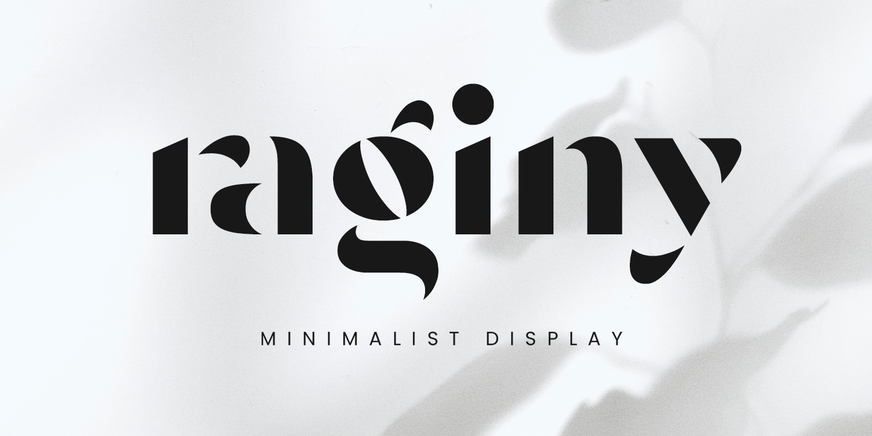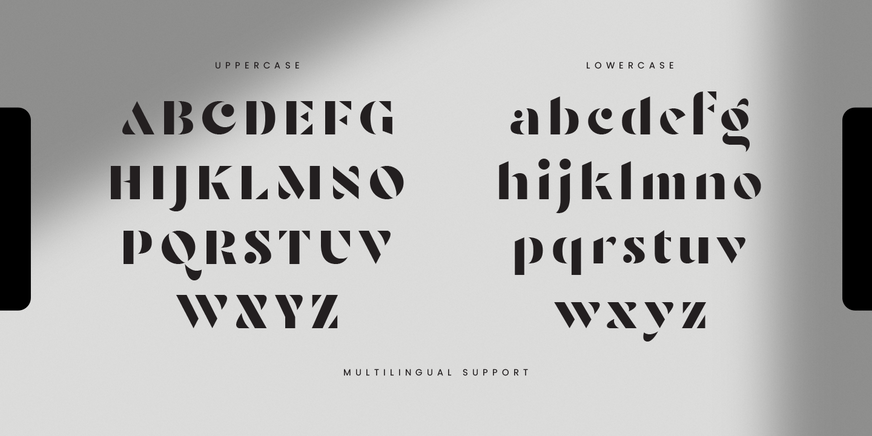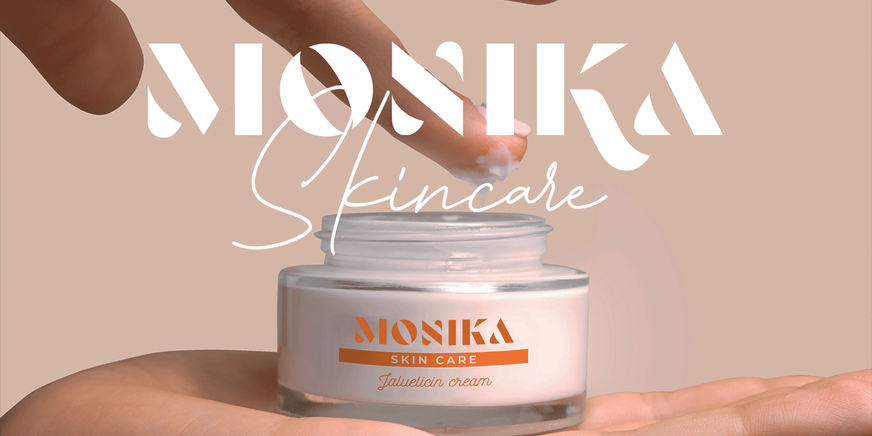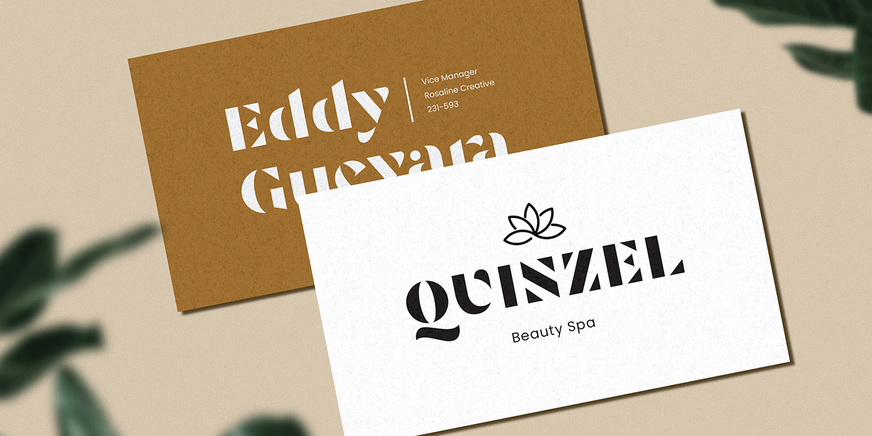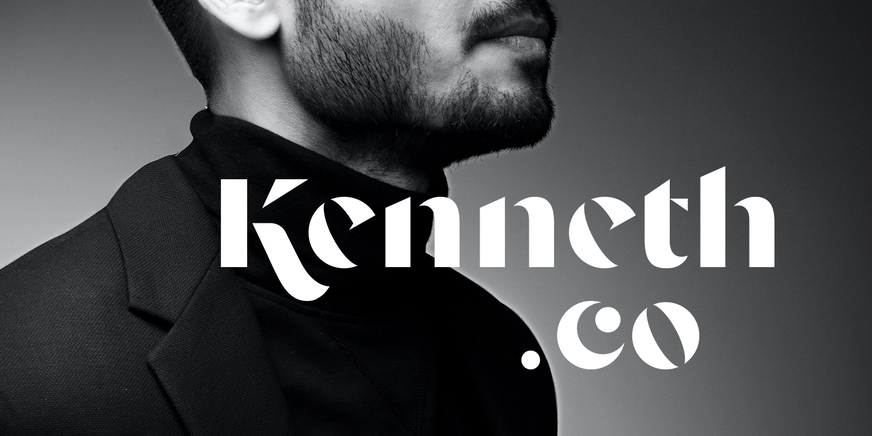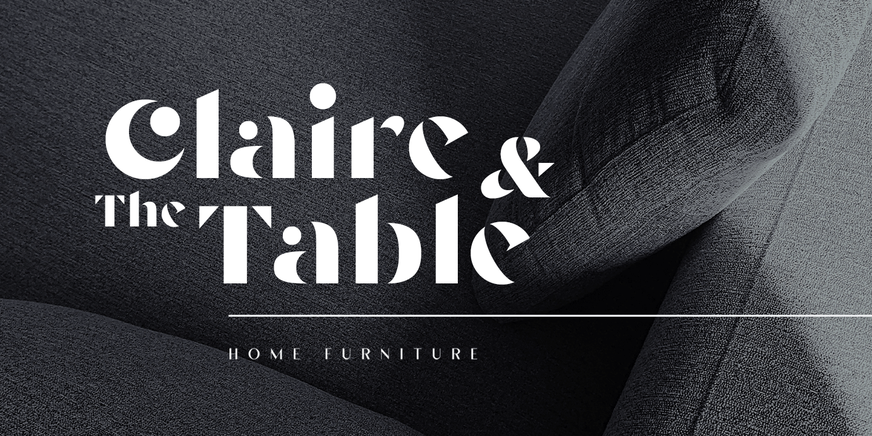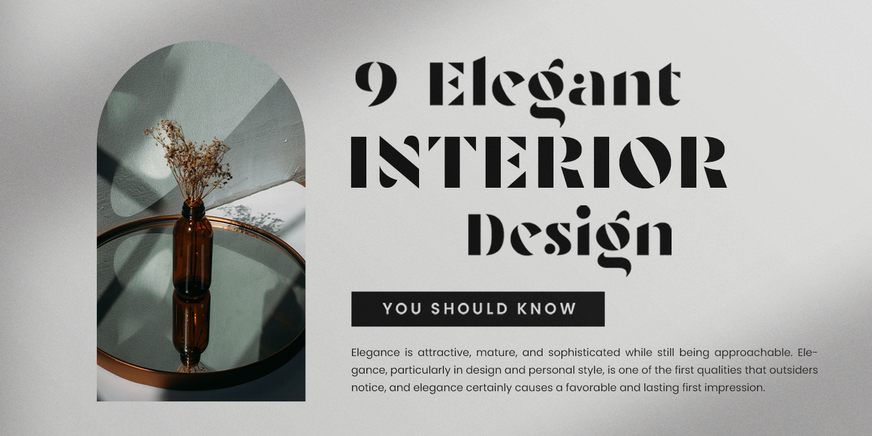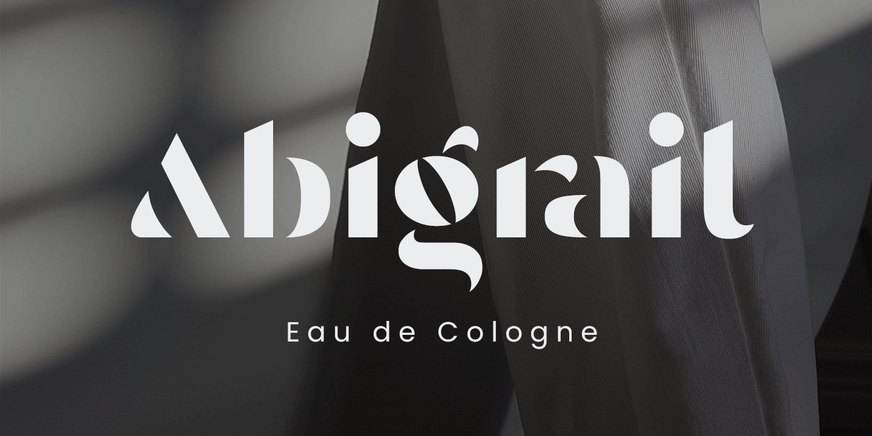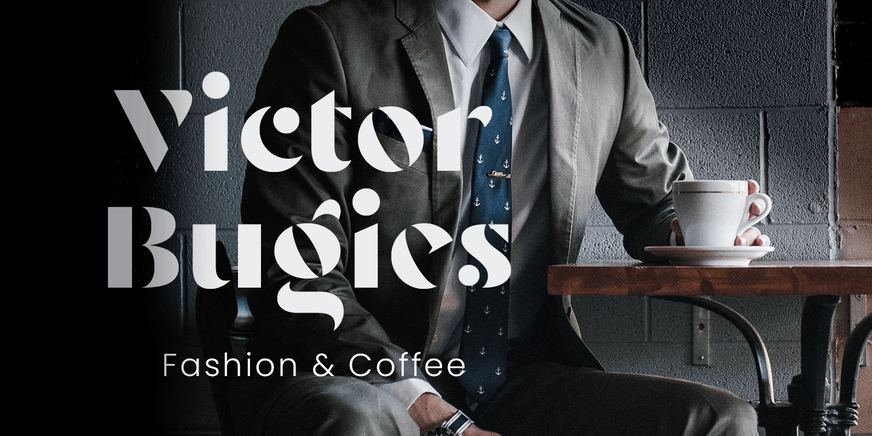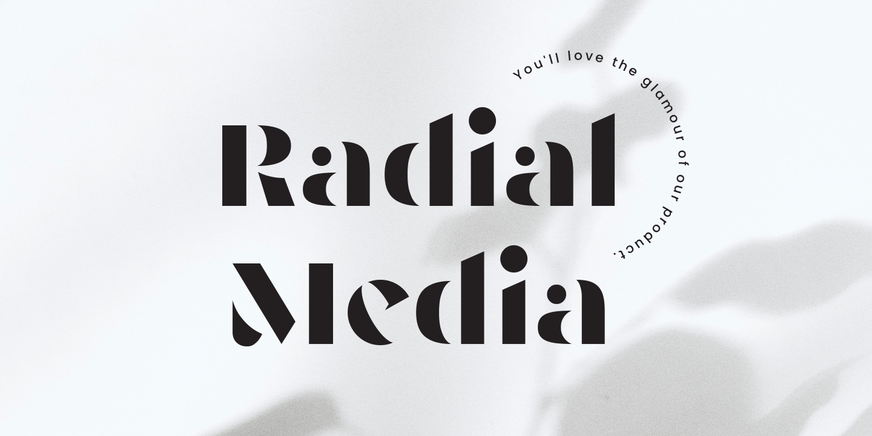
Raginy
Font Family by Arterfak Project
Raginy - Stencil Sans
Raginy is a sans serif in a stencil style. Made by paying attention to the distinctive elements of each letter, then eliminating the secondary parts and only highlighting the main elements of the letter so that it looks minimalist and elegant.
Raginy has sweet characteristics, simple, luxurious, and classy so it is very suitable for displays, logos, logotypes, branding, titles, short quotes, and so on.
This sans-stencil font is also equipped with alternates characters to sweeten your design, and also complete with unique ligatures.